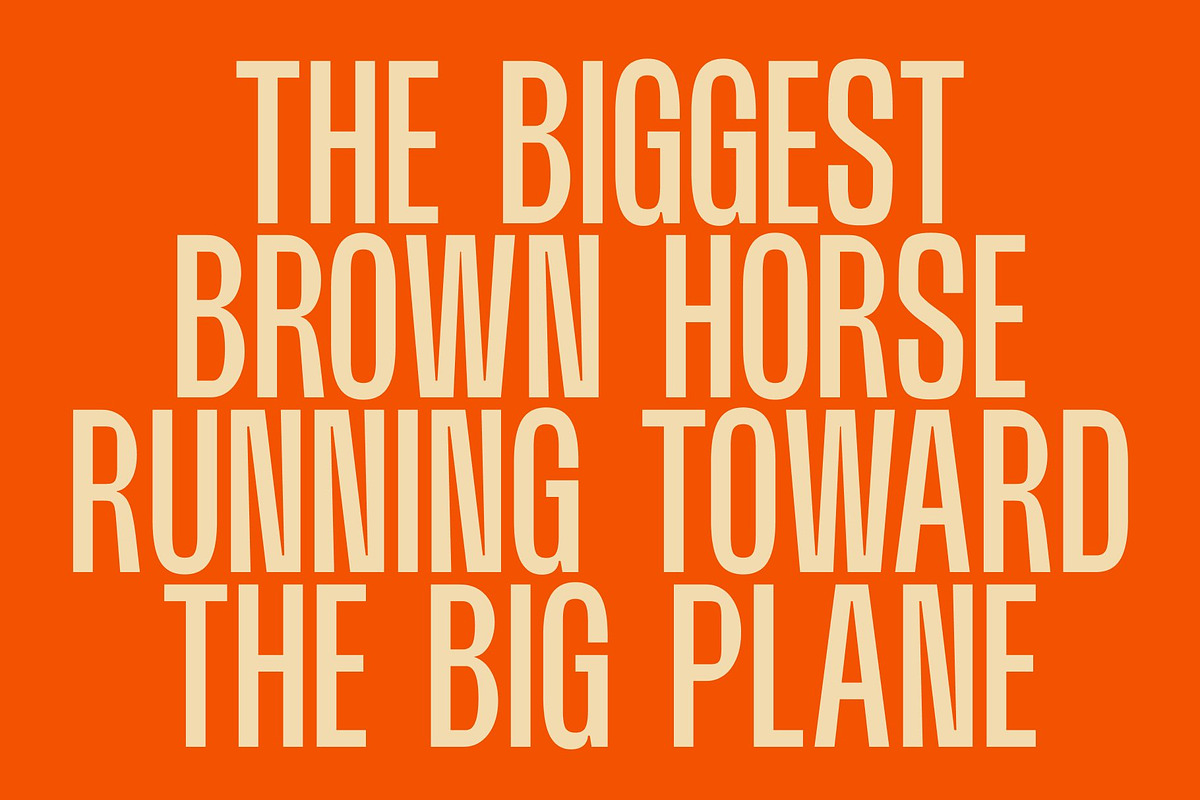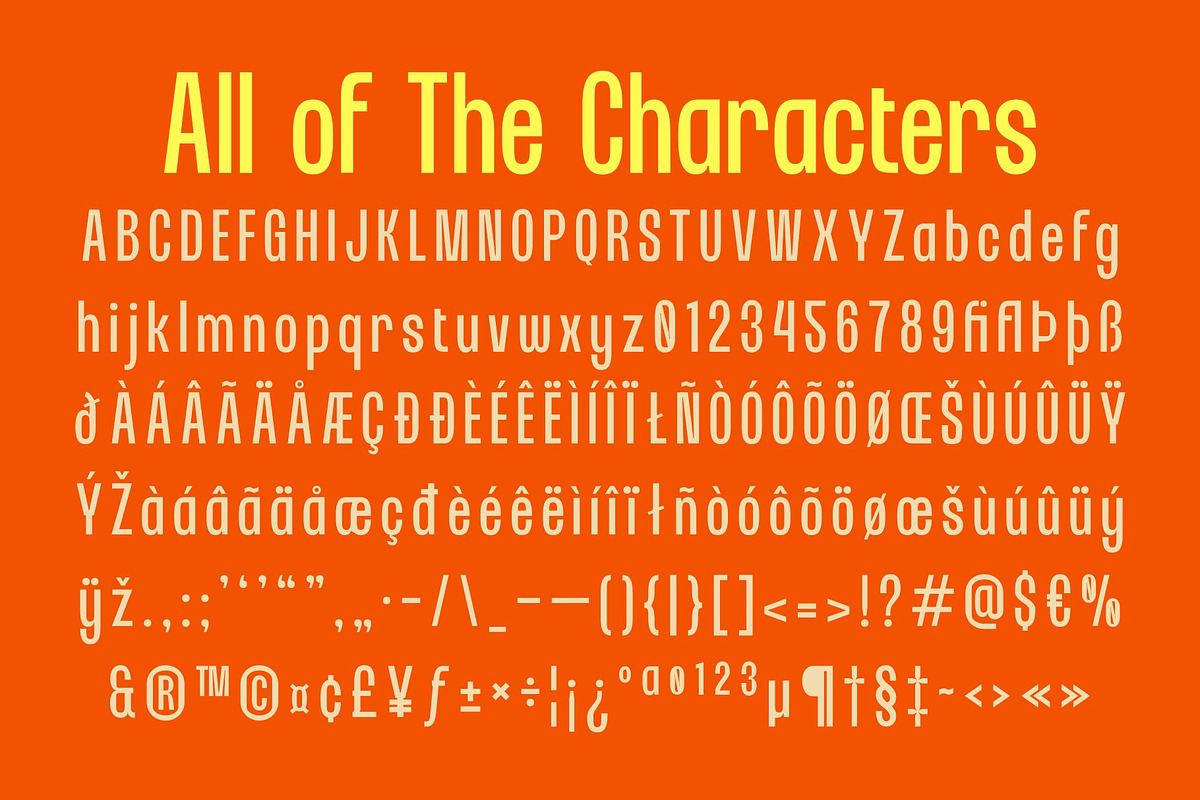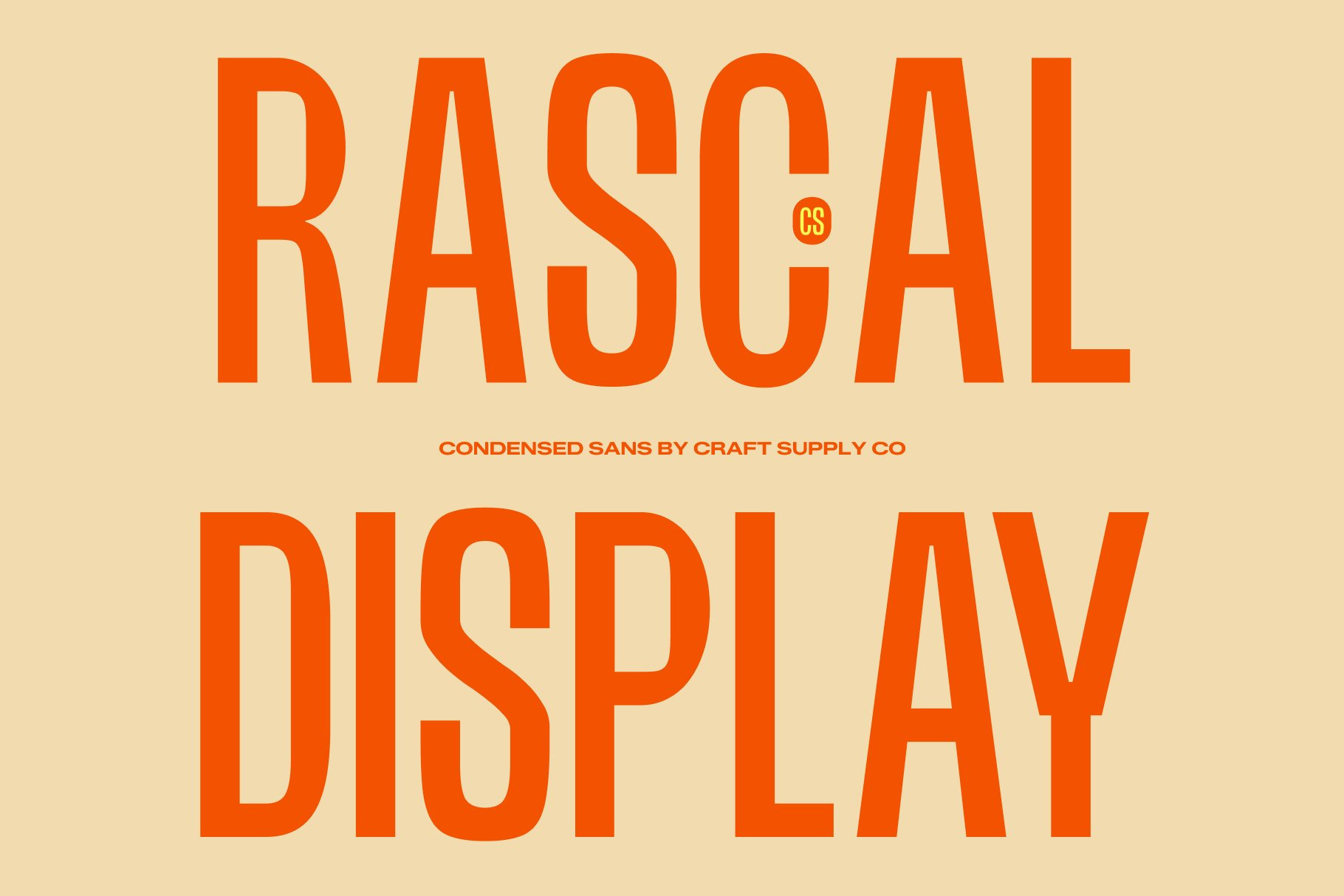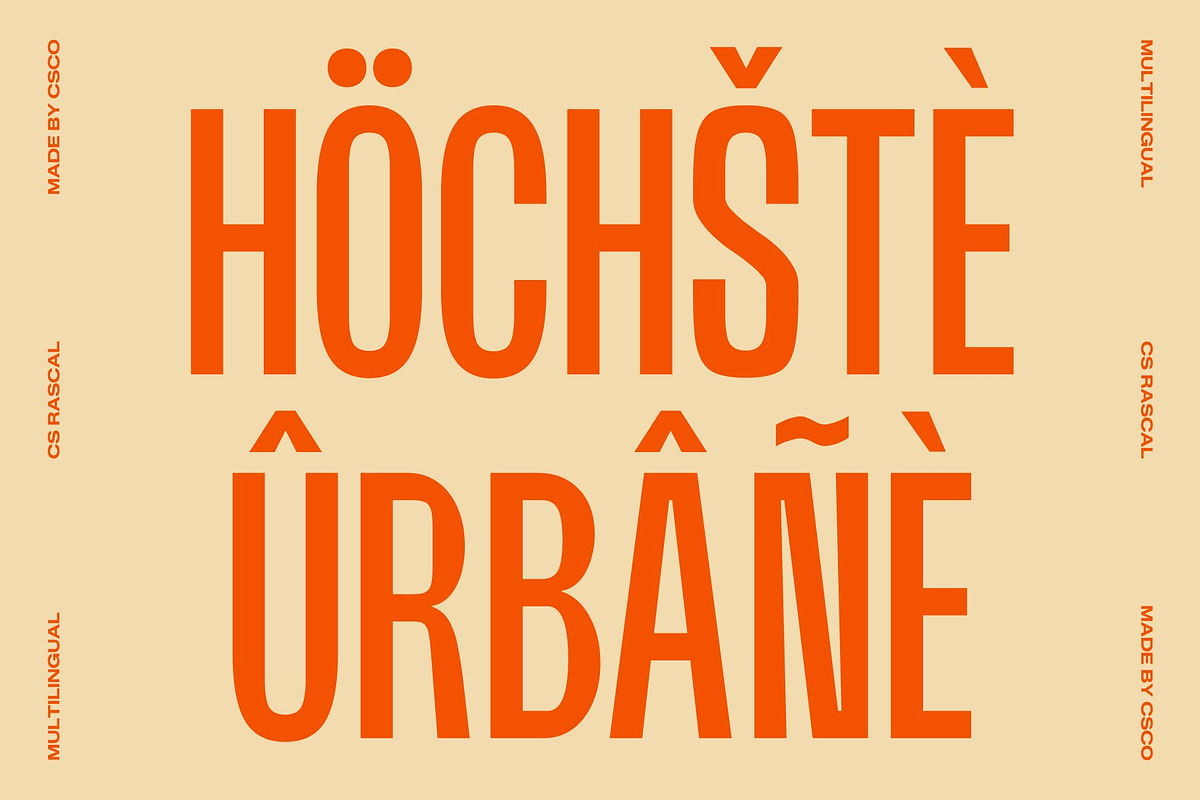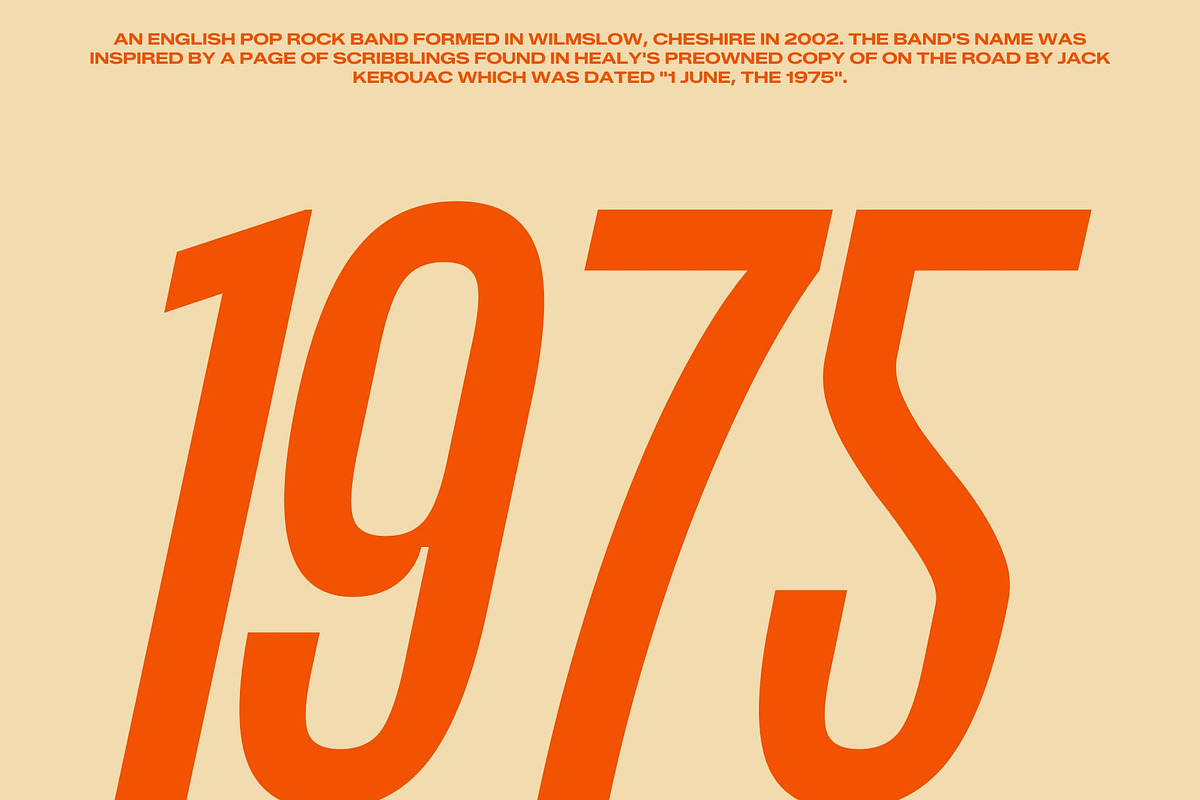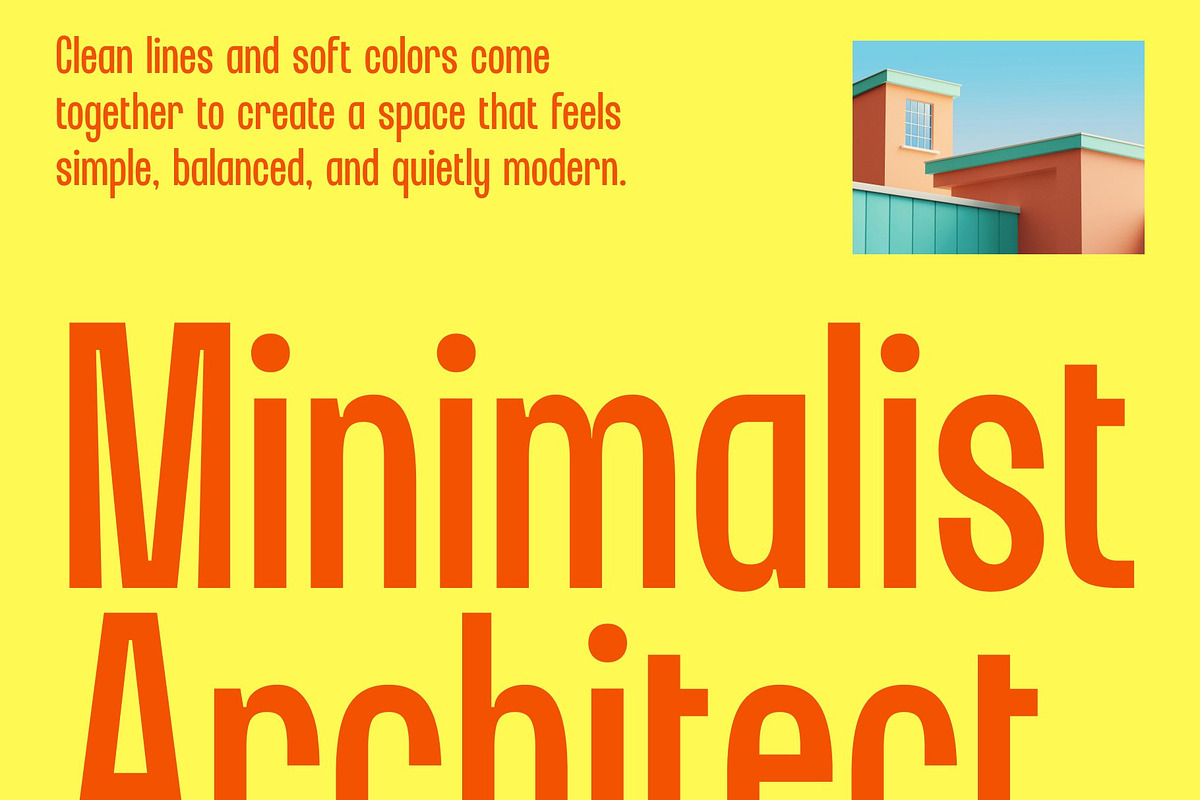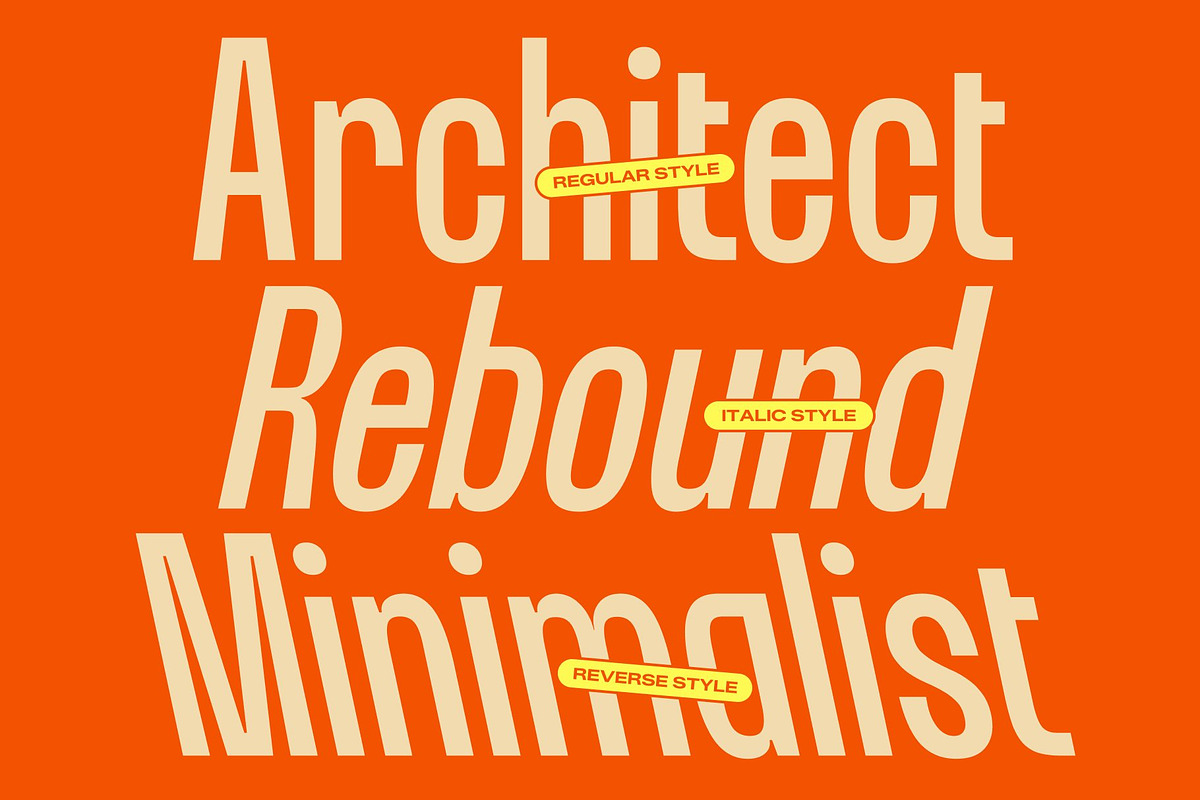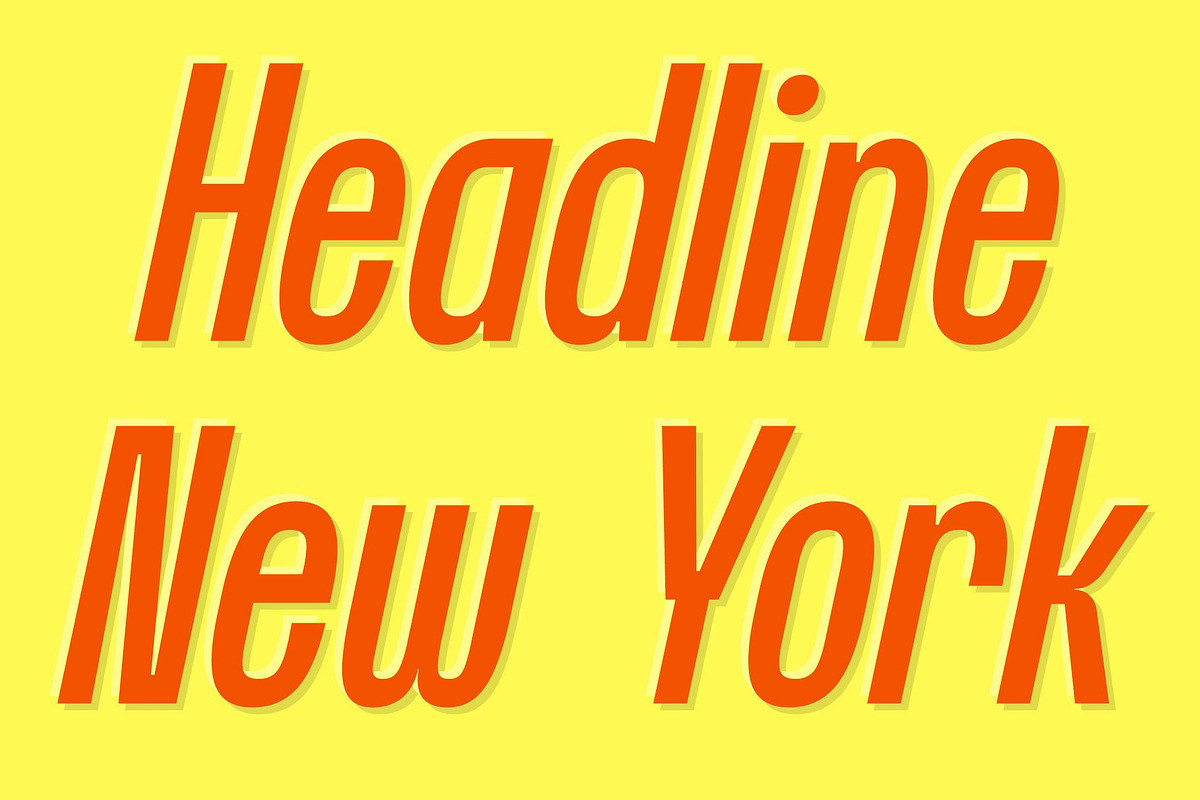
CS Rascal – Condensed Font
CS Rascal – Condensed Display Font with Modern Edge
Condensed Display Font for Contemporary Impact This is a condensed display font designed to bring modern energy into tight layouts. With its streamlined proportions and confident structure, this typeface turns headlines into striking visual statements while keeping text clear and easy to read. It is crafted for designers who want typography that feels bold, efficient, and unmistakably current.
Built for Tight Spaces and Strong Headlines The condensed form allows more words to fit comfortably into narrow compositions without sacrificing readability. Each letterform is carefully shaped to appear tall, balanced, and highly legible, ensuring your message remains powerful even in dense layouts. This efficiency makes this font perfect for posters, banners, and bold titles.
Clean Shapes with Modern Personality This font combines smooth lines with a confident structure, creating a fresh and versatile appearance. Its clean geometry allows the font to adapt seamlessly across different visual styles, from minimal layouts to bold graphic compositions. The result is a typeface that feels modern, flexible, and visually engaging.
Perfect for Headlines, Posters, and Branding From editorial headlines and posters to branding and digital campaigns, this font delivers a reliable and contemporary typographic solution. Its condensed proportions and modern design ensure your typography stands out with clarity, confidence, and fresh visual appeal.
CS Rascal Regular
CS Rascal Italic
CS Rascal Reverse Italic